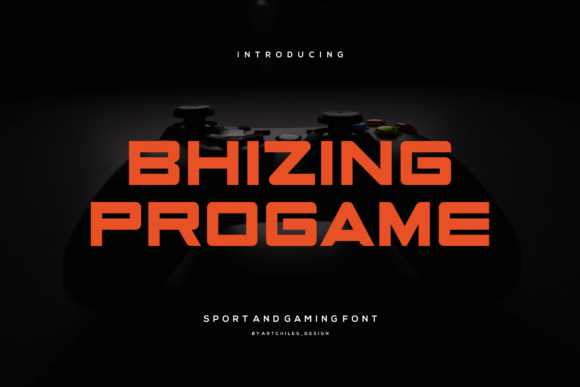
Score Big with the Perfect Font: Bhizing Progame
Imagine you’re in the middle of a high-stakes esports tournament, and the crowd is on the edge of their seats, waiting for the final score. The announcer’s voice is loud and clear, and the screen behind him comes alive with vibrant graphics and eye-catching text. That’s where the right font comes in – a font that can elevate the excitement and energy of the moment.
Enter the Bhizing Progame Font, a bold and sleek typeface designed specifically for sports and gaming. With its sharp edges and clear typography, this font is perfect for displaying scores, player names, and game titles in a way that grabs the audience’s attention. Whether you’re designing for a video game, sports event, or esports tournament, the Bhizing Progame Font brings a dynamic touch to your text, making it a valuable addition to any designer’s toolkit.
Bhizing Progame Font Key Features
- Unique Characteristics: This font features a distinctive, futuristic design with a focus on digital and gaming themes, making it ideal for use in video game development, digital art, and sci-fi projects.
Bhizing Progame Font Review
First impressions are everything, and Bhizing Progame Font is certainly eye-catching. ✨ I love the unique blend of futuristic and retro elements that make it stand out from more traditional fonts. The designer has done an excellent job in creating a font that’s both bold and elegant at the same time.
One of the standout features of Bhizing Progame Font is its versatility. ✨ It works well for a wide range of applications, from video game titles to sci-fi novels and futuristic branding. The font’s bold lines and geometric shapes make it perfect for creating a sense of excitement and energy.
While Bhizing Progame Font has its strengths, there are a few areas where it falls short. ⚠️ For one, the font can be a bit overwhelming when used in large quantities. The bold lines and geometric shapes can start to feel cluttered and busy, making it difficult to read. Additionally, the font may not be suitable for applications where a more subtle or understated look is desired.
Limitations in Detail
- May be overwhelming when used in large quantities
- Not suitable for applications requiring a more subtle look
Overall, I think Bhizing Progame Font is a great addition to any designer’s toolkit. While it may not be perfect, its unique blend of styles and versatility make it a great choice for a wide range of applications.
For the most out of Bhizing Progame Font, use it for:
1. Gaming-related designs, such as posters, flyers, and social media graphics.
2. Creating a retro or pixel art aesthetic.
3. Adding a unique touch to your designs, such as titles, headings, and body text.